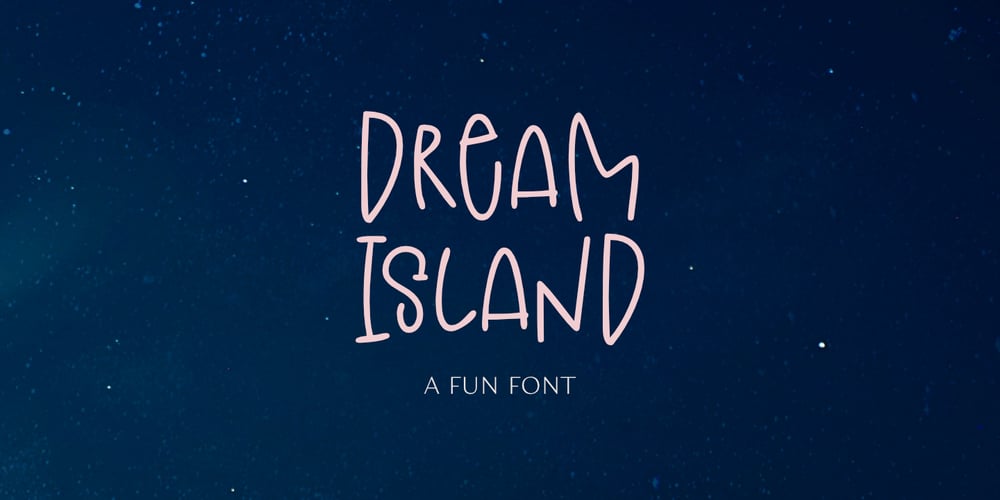
Dream Island
Dream Island font
Dream Island Font Family was designed by Aldy Sidik and published by Epiclinez. Dream Island contains 1 styles and family package options. Dream Island is a simple, relaxed, and fine handwritten font. Its simple style makes it fitting to a wide range of designs, so add it confidently to your informal or casual ideas, and you will love the results.